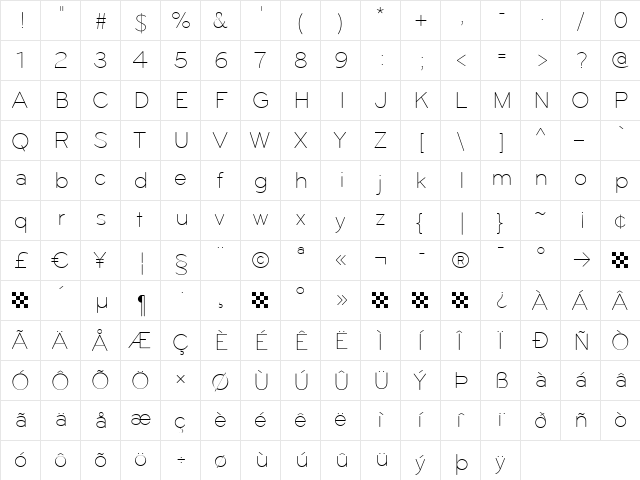
Bryant Regular
Design Context for Bryant Typeface
Bryant offers clean, dependable letterforms without strong stylistic allegiance, making it a practical choice for designers who need flexibility.
Pro Tip: Pair Bryant with a font of contrasting weight or personality to build a more expressive typographic hierarchy.